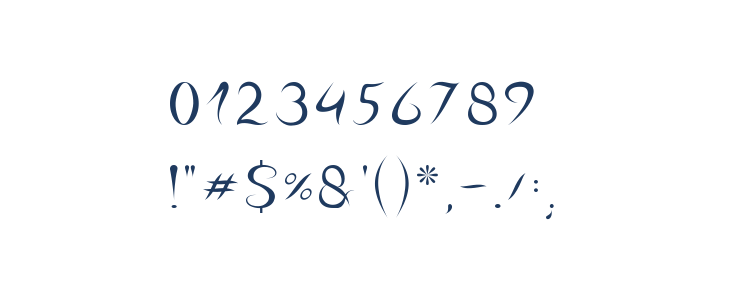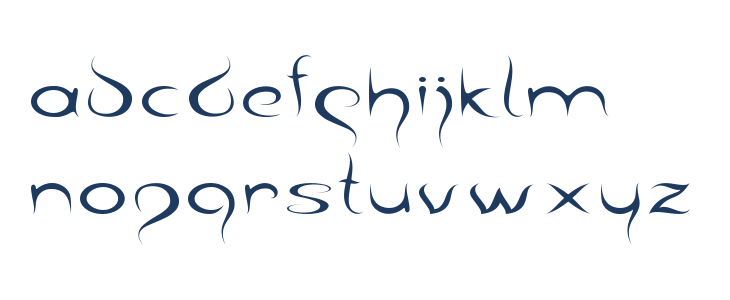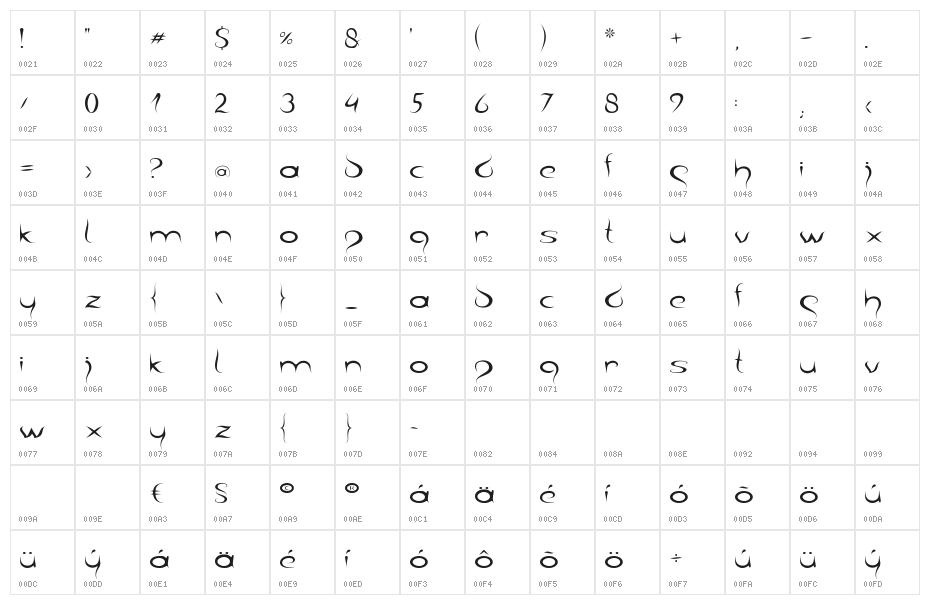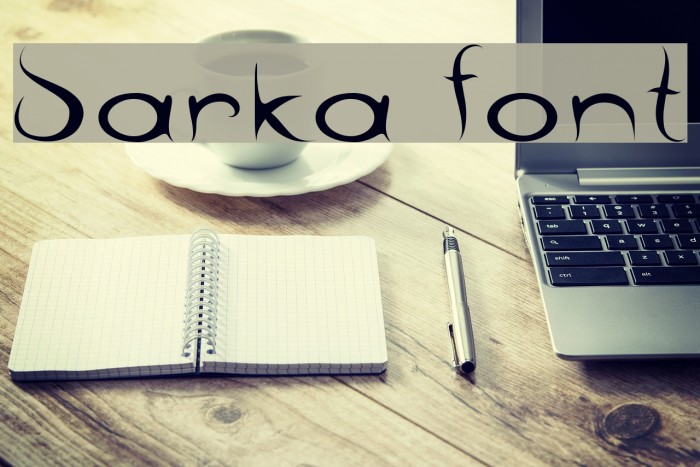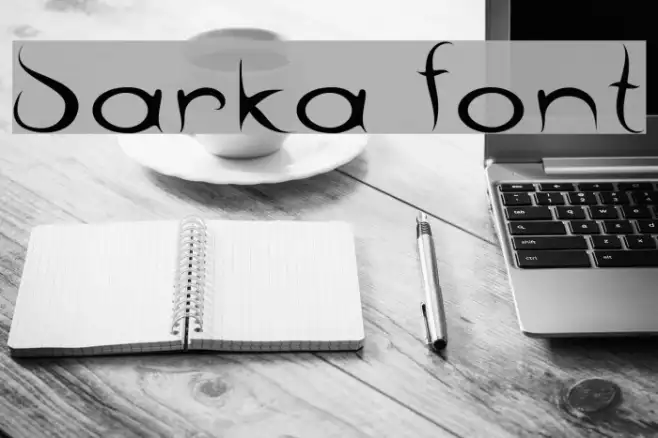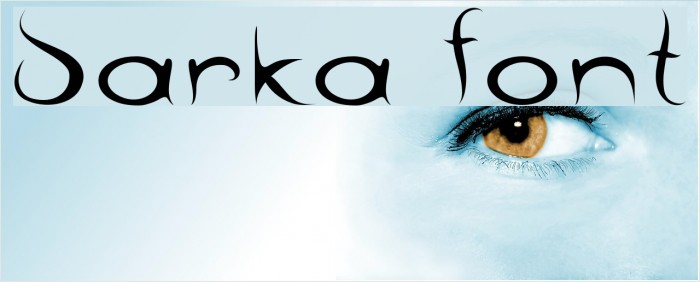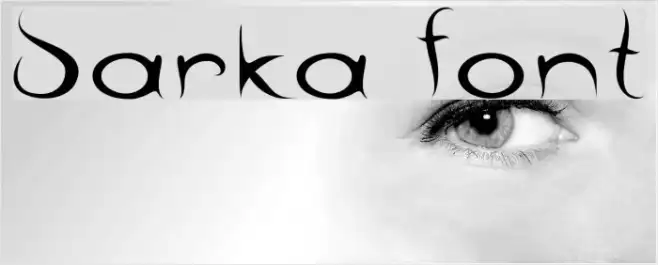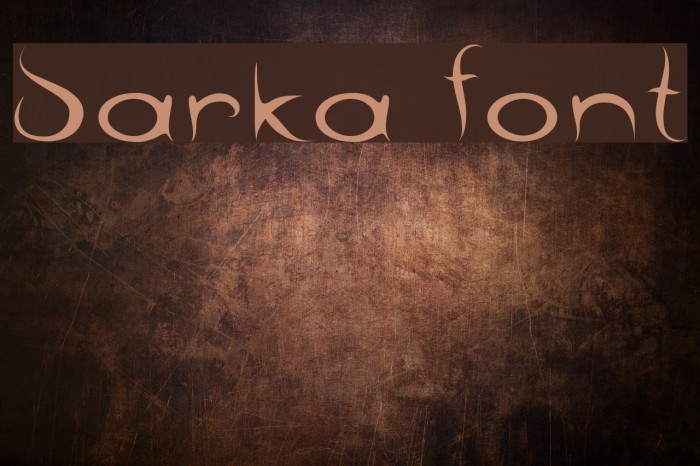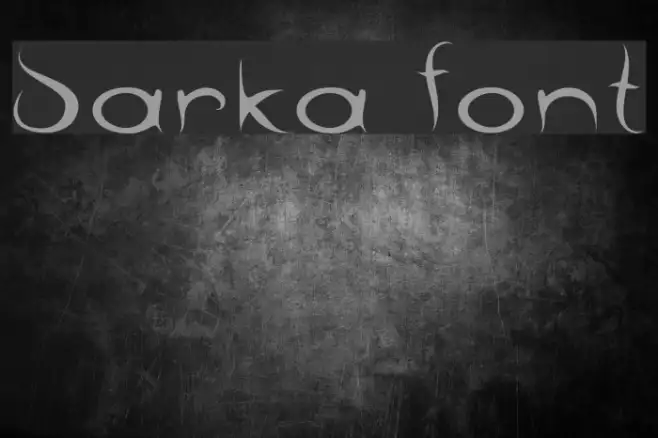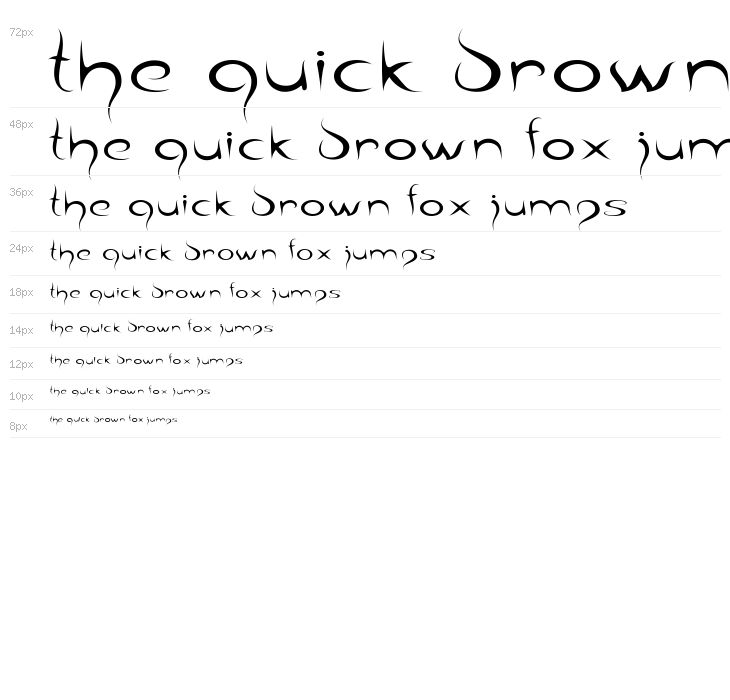
barka Font
barka Description
This font exhibits a unique and artistic style, characterized by its sharp, flame-like serifs and flowing curves. The letters have an organic, almost tribal appearance, with pointed edges and dynamic strokes that suggest movement and energy. The lowercase letters maintain a consistent height, while the uppercase letters are bold and striking. The numerals are distinct, with a similar sharpness and flair, making them stand out. Special characters are creatively designed, adding to the font's overall aesthetic appeal. This font is ideal for projects that require a dramatic and eye-catching typeface.
Proposed ProjectsPerfect for tattoo designs, album covers, fantasy-themed posters, and branding that requires a bold statement.